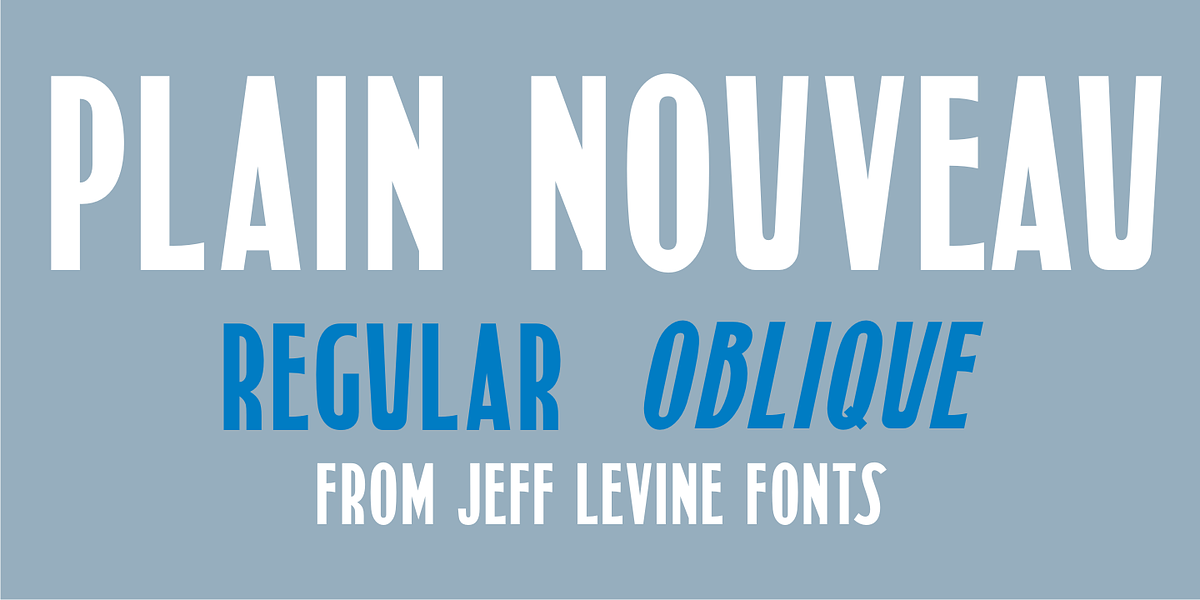
Plain Nouveau JNL
The Women’s Suffrage Movement gained women the right to vote in 1920. Up until then there were many ways undertaken to rally sympathy for the cause.
In 1916 Alice Paul formed the National Woman's Party.
That same year a song with the [exhaustive] sixteen word title “She’s Good Enough to be Your Baby’s Mother (And She’s Good Enough to Vote with You)” yielded a hand lettered Art Nouveau sans serif design in the main portion of the title.
This became the basis for Plain Nouveau JNL, which is available in both regular and oblique versions.